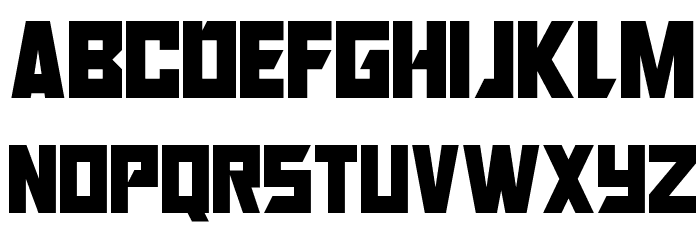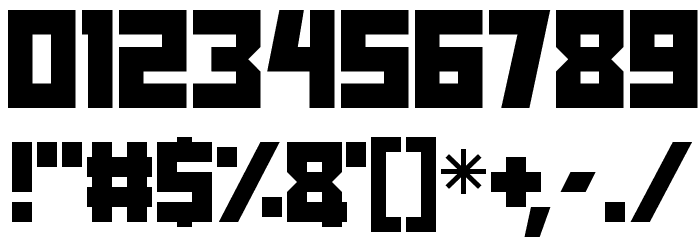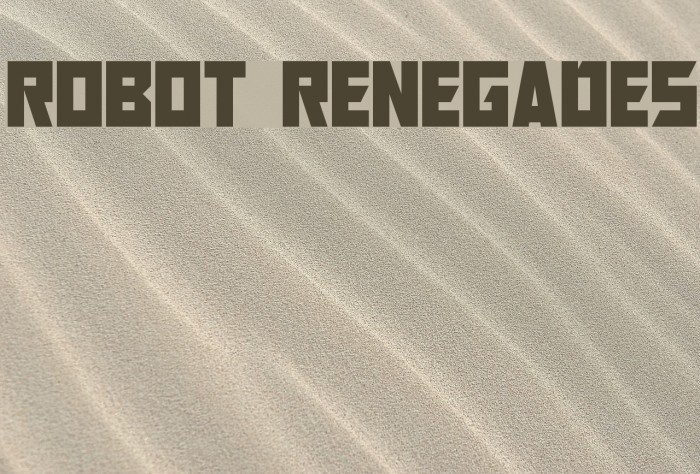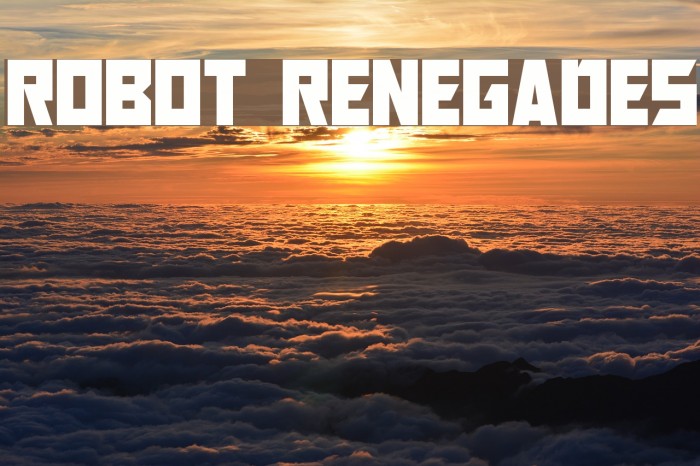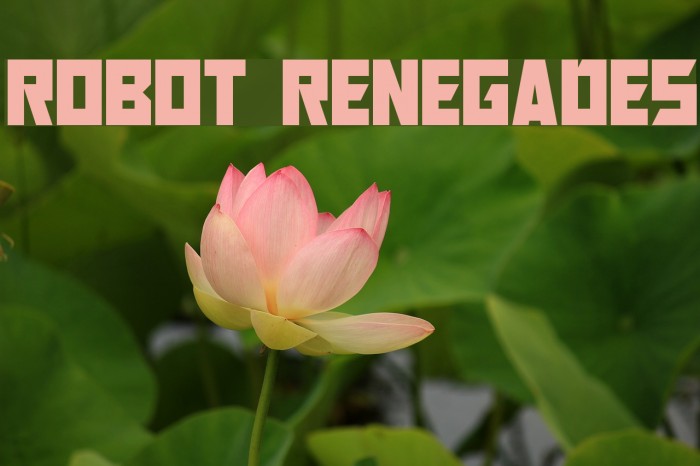
Robot Renegades Font
This font showcases a bold, geometric style with sharp angles and a futuristic aesthetic. The characters are blocky and robust, featuring a consistent thickness throughout, which gives them a strong presence. The angular design elements add a dynamic and edgy feel, making it suitable for modern and tech-oriented themes. The uppercase and lowercase letters maintain a uniform height, enhancing the font's cohesive look. Numbers and special characters follow the same design principles, ensuring a harmonious appearance across all elements. The font's distinct style makes it ideal for projects that require a bold and impactful visual statement.
- Proposed Projects: Ideal for tech-themed posters, video game titles, futuristic branding, and sci-fi book covers.
- Overall Style: Futuristic, Modern